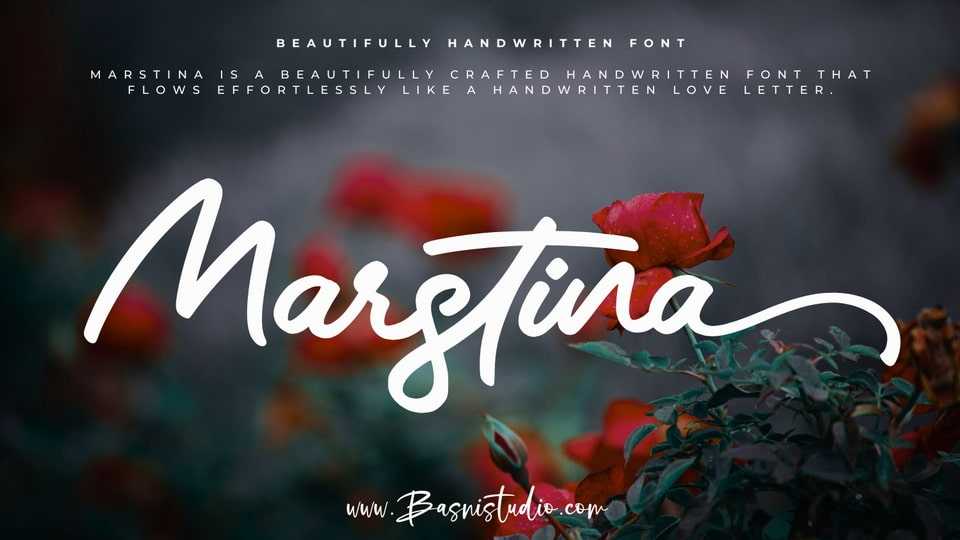
Download Marstina font, a beautifully crafted handwritten typeface that flows effortlessly like a handwritten love letter. It’s a perfect font to add a touch of romance, elegance, and charm to your designs.